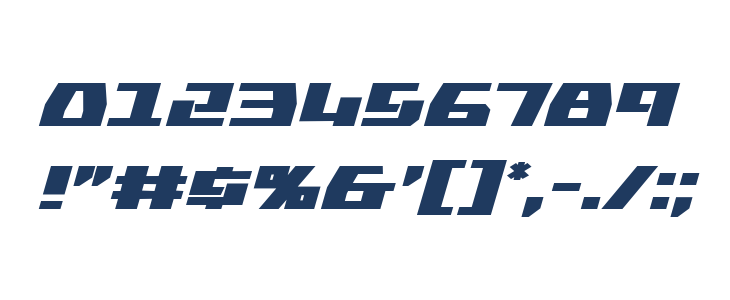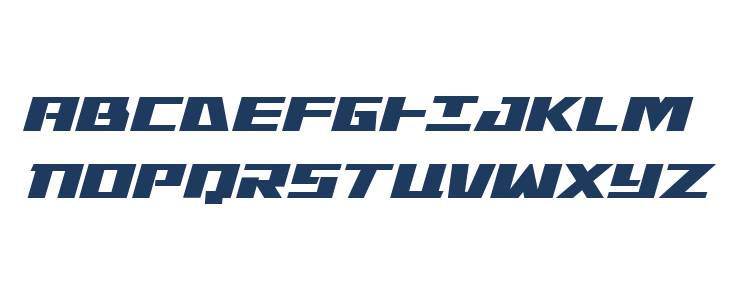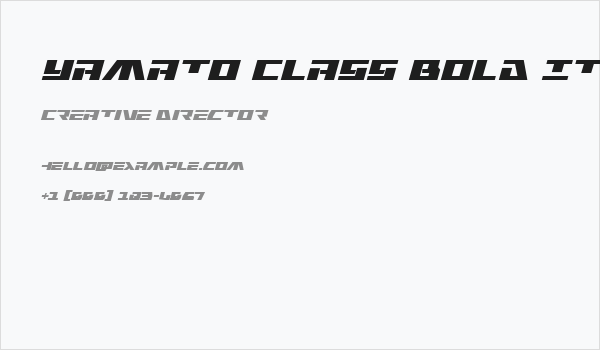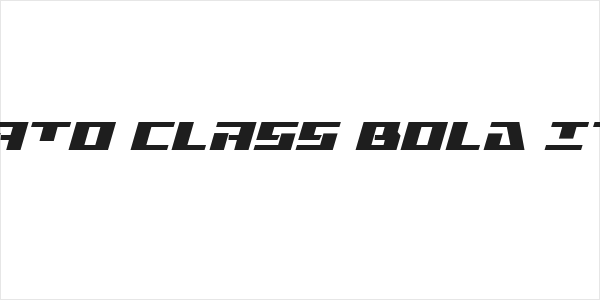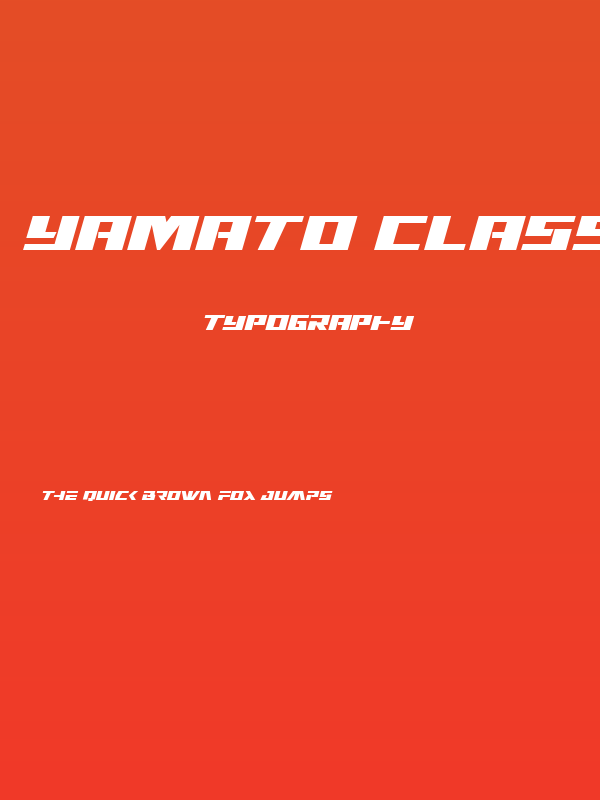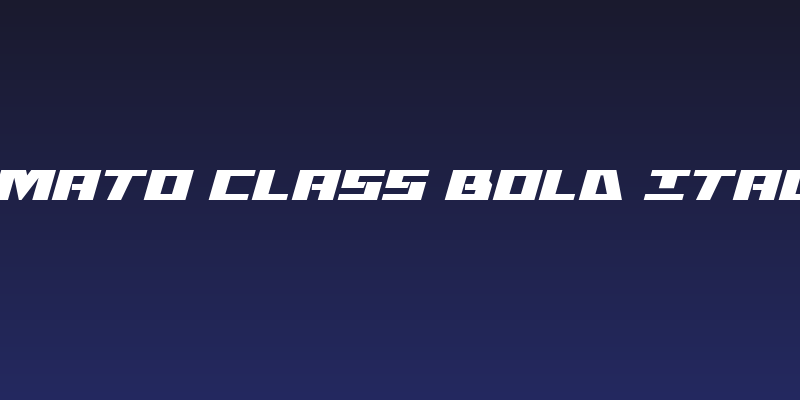
Yamato Class Bold Italic Font
Yamato Class Bold Italic Description
A bold, italicized, geometric sans-serif typeface with sharp, angular letterforms and a futuristic, aggressive appearance. The characters are wide with tight spacing and consistent stroke thickness, giving a dynamic, high-impact look.
| Overall Style | Futuristic, Decorative, Modern |
| Use Case | Headlines, Logos, Posters, Branding |
| Proposed Projects | Video game titles, sci-fi movie posters, sports branding, technology logos, event flyers. |